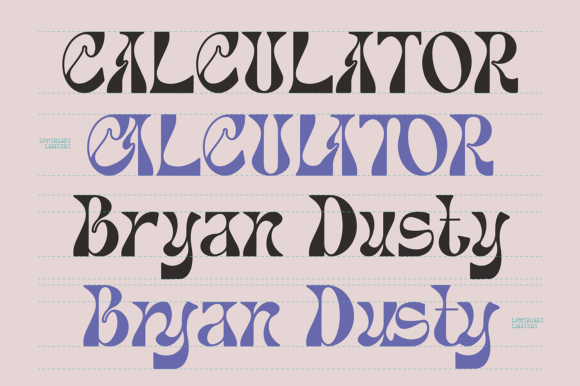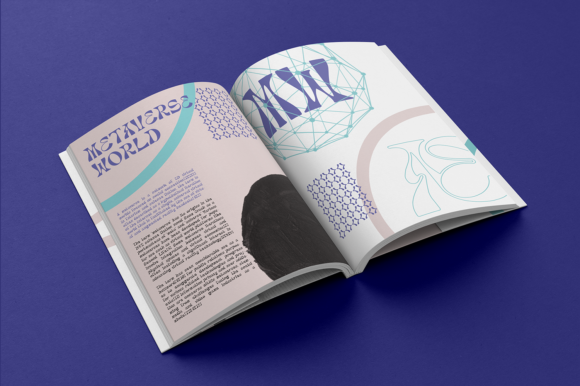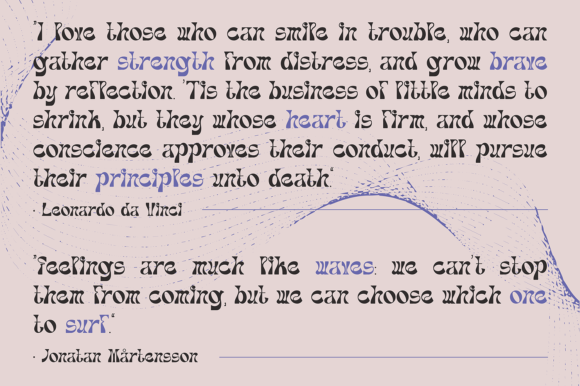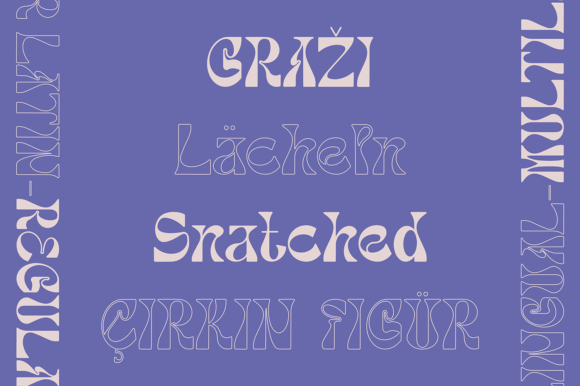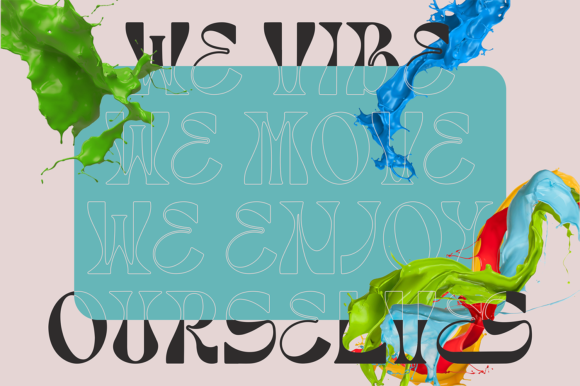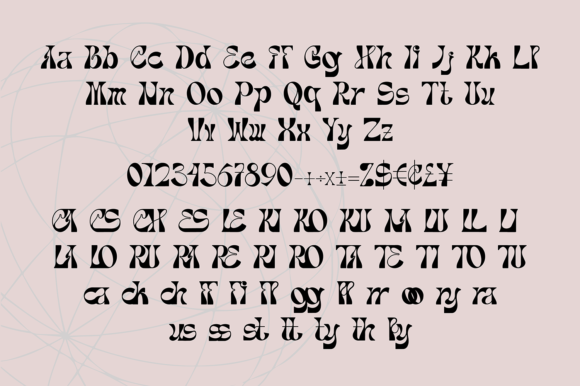
Introduction to Heartwave Font Font
Fonts play a crucial role in design, and the Heartwave Font font is a typeface that brings both character and versatility to any project. Whether you’re working on a branding project, a website, or a print design, the Heartwave Font font offers a unique style that can elevate your work.
Heartwave is a wavy and cool display font, inspired by old signs, 70’s posters, and mixed with modern trend designs.
It will look stunning on any poster, flyer or print .
Key Features of Heartwave Font Font
Why Choose Heartwave Font Font?
The Heartwave Font font is more than just a typeface – it’s a design tool that helps you communicate your message with style and clarity. Its unique character set and versatile design make it suitable for a wide range of applications, from elegant invitations to bold headlines.
With its carefully crafted letterforms and balanced proportions, the Heartwave Font font ensures readability and visual appeal across all mediums.
What makes Heartwave Font font special?
The Heartwave Font font stands out with its unique design, exceptional readability, and versatility across various design applications.